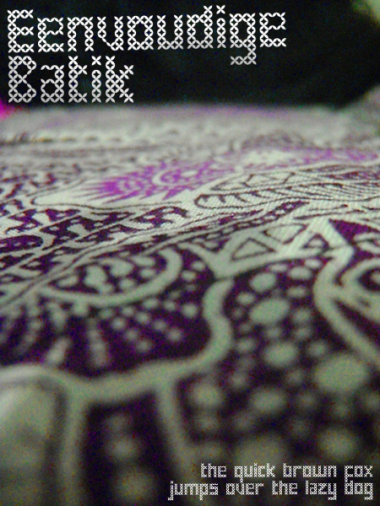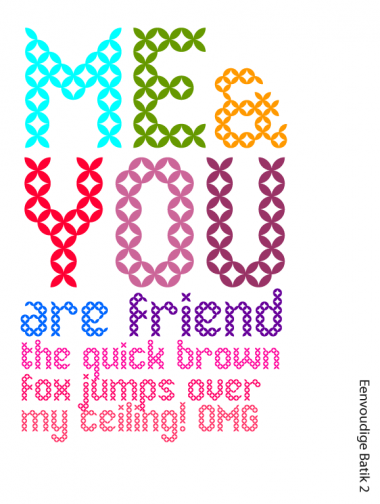
X and Z need improving, but generally awesome font!
yeah.. both of yours and mine are kinda knitting font. It can be eco-friendly font :)
I like the sample.
:) it's took from my mother's cloth (batik)